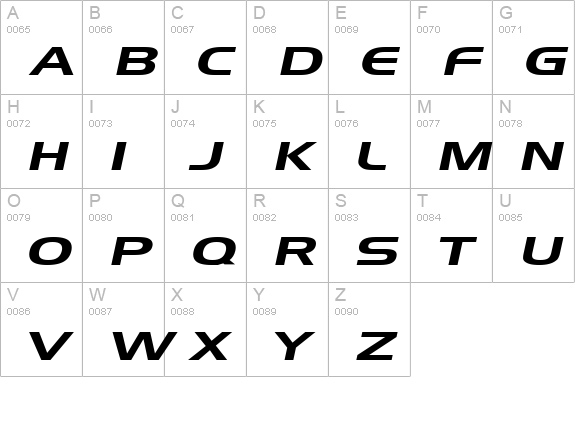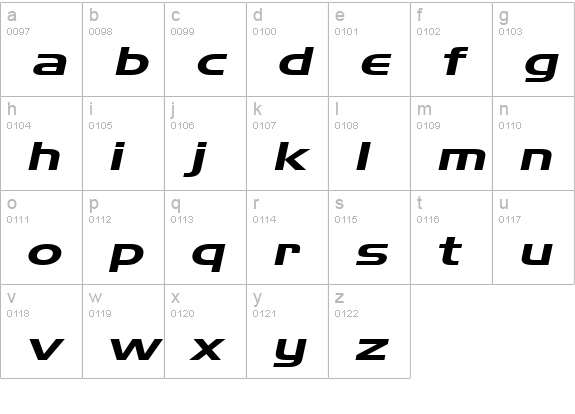
Hanzel Extended Italic Font Details
Hanzel Extended Italic is a distinctive, extended-width, italic variant in the Hanzel typeface family \xE2\x80\x94 well suited to design and typography projects.
Hanzel Extended Italic is a stunning and versatile font that effortlessly combines elegance with a touch of modernity. Its sleek and elongated letterforms exude a sense of sophistication, making it a perfect choice for projects that require a sophisticated and refined look. This font's italic variant adds an extra layer of style and flair, creating a visually captivating effect when used in headlines, titles, or branding materials. The slanted and gracefully slanted letterforms give any design a dynamic and energetic vibe, making it stand out from the crowd. Whether you are designing a logo, a magazine layout, an invitation, or a website, Hanzel Extended Italic is sure to elevate your design to new heights. Its versatility allows it to be used in a wide array of projects, from fashion and beauty to technology and corporate branding. And the best part? Hanzel Extended Italic is available for free! You can easily download this font from FontsMarket.com, where it is freely available for personal and commercial use. So, why wait? Add a touch of elegance and modernity to your designs with Hanzel Extended Italic today.